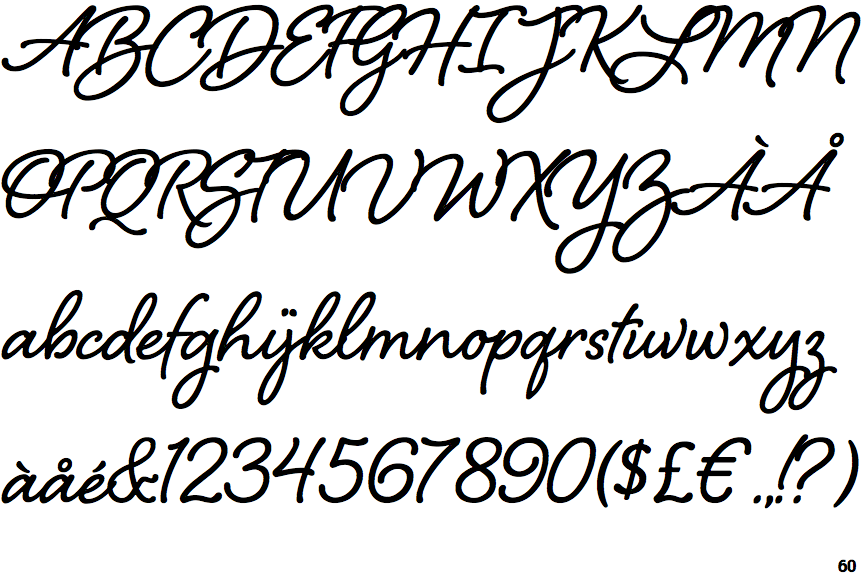
Shelby Bold Font - A script typeface with 2 styles, available from adobe fonts for sync and web. 'find my font' is an easy to use application for identifying fonts in digital images. This font features a flowing, cursive style with. Explore shelby designed by laura worthington at adobe fonts.
This font features a flowing, cursive style with. 'find my font' is an easy to use application for identifying fonts in digital images. Explore shelby designed by laura worthington at adobe fonts. A script typeface with 2 styles, available from adobe fonts for sync and web.
'find my font' is an easy to use application for identifying fonts in digital images. Explore shelby designed by laura worthington at adobe fonts. This font features a flowing, cursive style with. A script typeface with 2 styles, available from adobe fonts for sync and web.
'find my font' is an easy to use application for identifying fonts in digital images. This font features a flowing, cursive style with. Explore shelby designed by laura worthington at adobe fonts. A script typeface with 2 styles, available from adobe fonts for sync and web.
Explore shelby designed by laura worthington at adobe fonts. This font features a flowing, cursive style with. 'find my font' is an easy to use application for identifying fonts in digital images. A script typeface with 2 styles, available from adobe fonts for sync and web.
A script typeface with 2 styles, available from adobe fonts for sync and web. 'find my font' is an easy to use application for identifying fonts in digital images. Explore shelby designed by laura worthington at adobe fonts. This font features a flowing, cursive style with.
'find my font' is an easy to use application for identifying fonts in digital images. A script typeface with 2 styles, available from adobe fonts for sync and web. This font features a flowing, cursive style with. Explore shelby designed by laura worthington at adobe fonts.
This font features a flowing, cursive style with. A script typeface with 2 styles, available from adobe fonts for sync and web. Explore shelby designed by laura worthington at adobe fonts. 'find my font' is an easy to use application for identifying fonts in digital images.
This font features a flowing, cursive style with. A script typeface with 2 styles, available from adobe fonts for sync and web. 'find my font' is an easy to use application for identifying fonts in digital images. Explore shelby designed by laura worthington at adobe fonts.
A script typeface with 2 styles, available from adobe fonts for sync and web. 'find my font' is an easy to use application for identifying fonts in digital images. Explore shelby designed by laura worthington at adobe fonts. This font features a flowing, cursive style with.
Shelby Bold Font Free Download TMfonts
Explore shelby designed by laura worthington at adobe fonts. This font features a flowing, cursive style with. A script typeface with 2 styles, available from adobe fonts for sync and web. 'find my font' is an easy to use application for identifying fonts in digital images.
A script typeface with 2 styles, available from adobe fonts for sync and web. Explore shelby designed by laura worthington at adobe fonts. This font features a flowing, cursive style with.